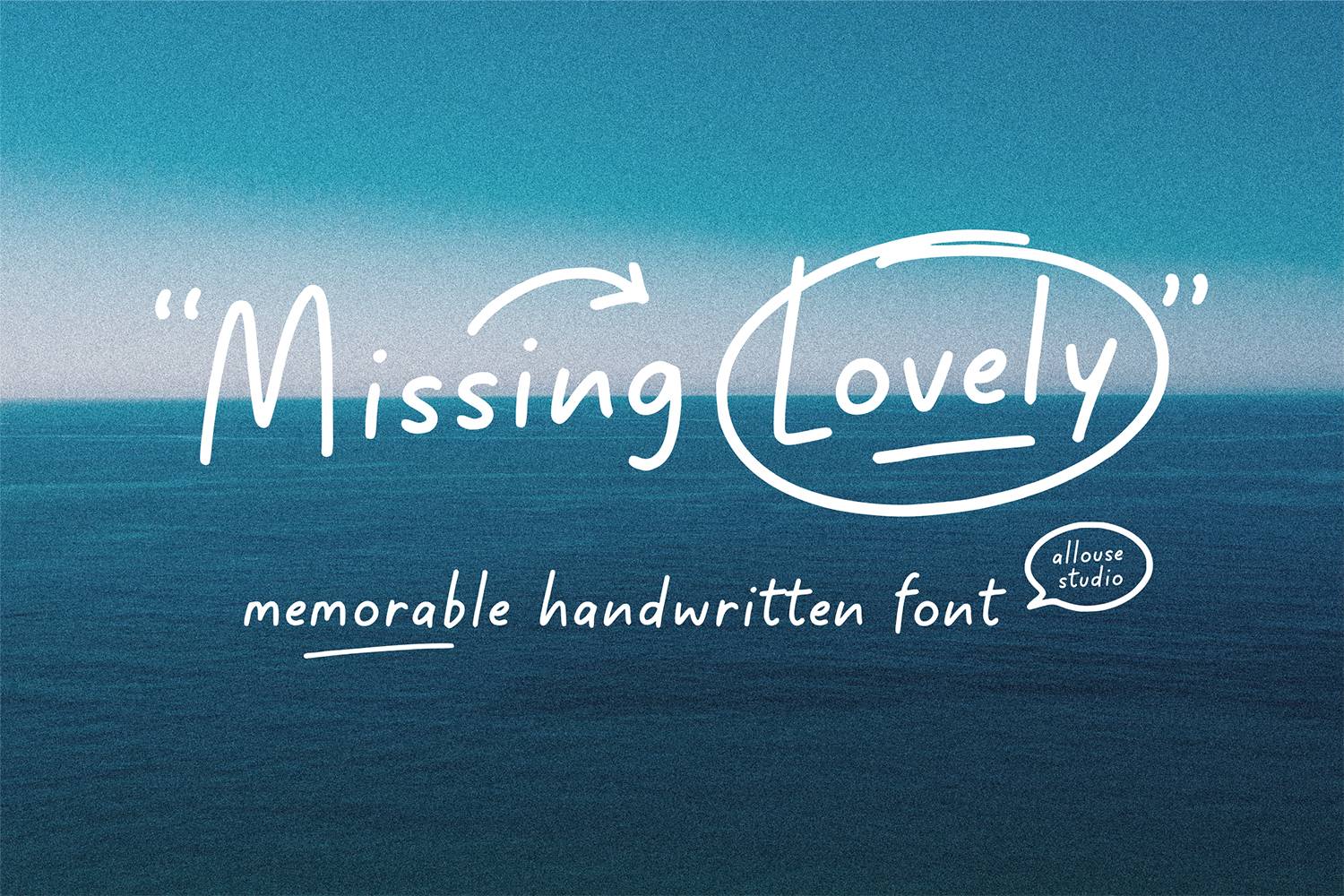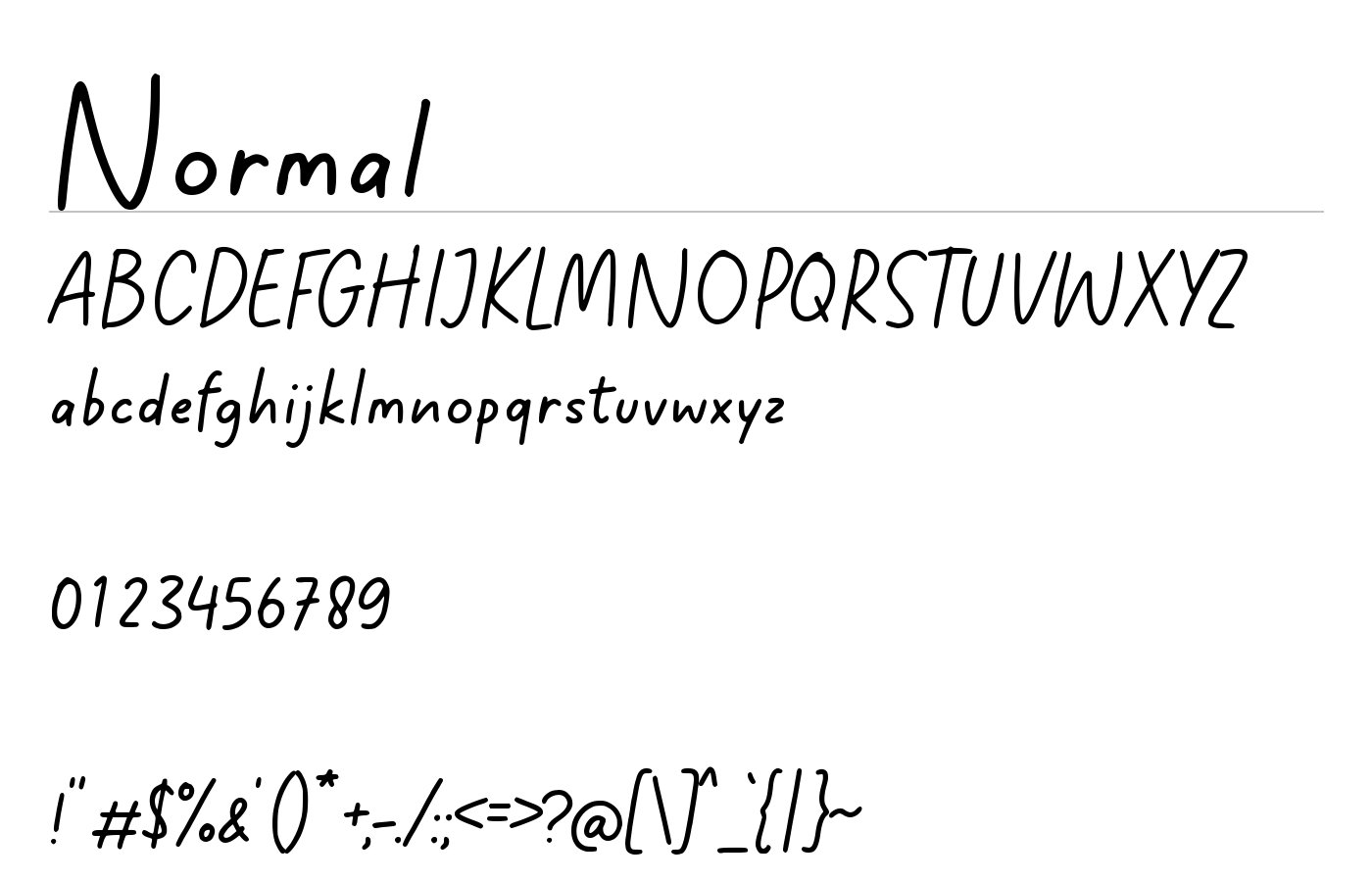
Missing Lovely Font is a casual, handwritten sans serif that feels approachable and friendly with its slender, slightly irregular letterforms and moderate x-height. Its light weight and airy spacing make it perfect for informal designs, personal projects, or playful branding that seeks a human touch. This font works best in headings, invitations, or digital content where a warm, personal vibe is desired.
Missing Lovely Font
About Missing Lovely Font